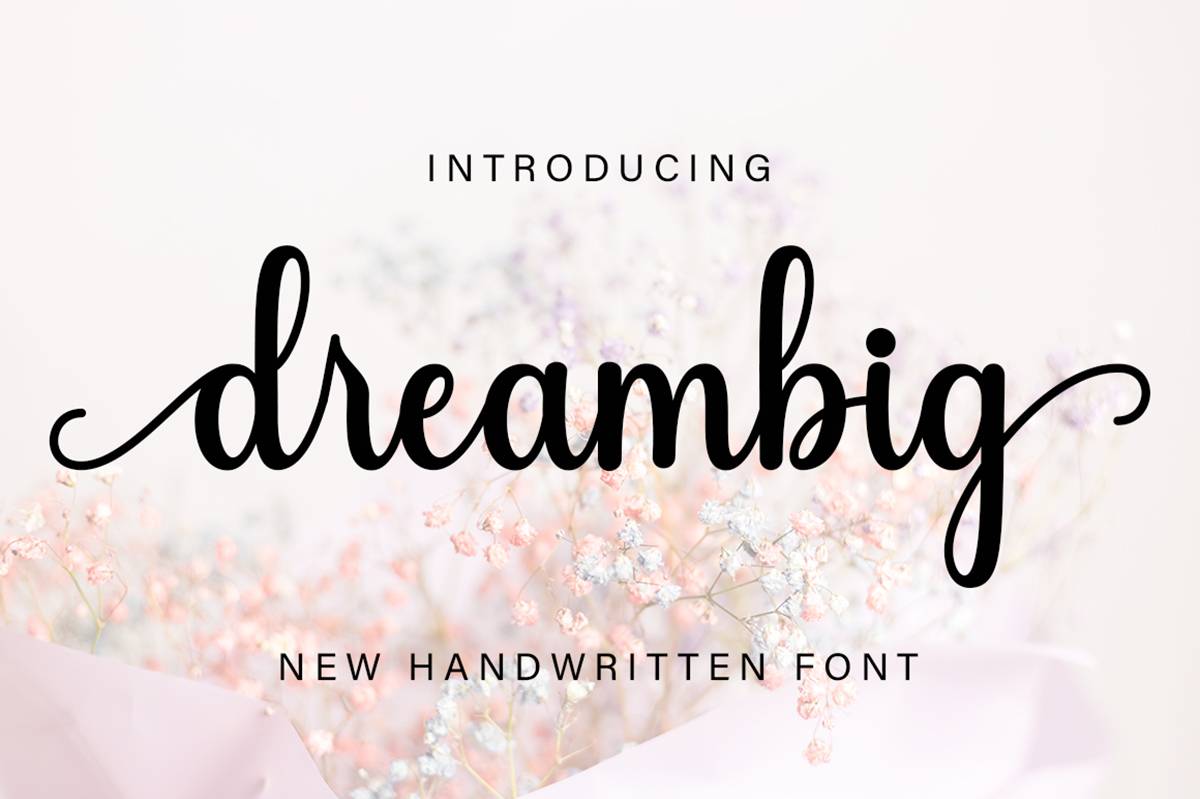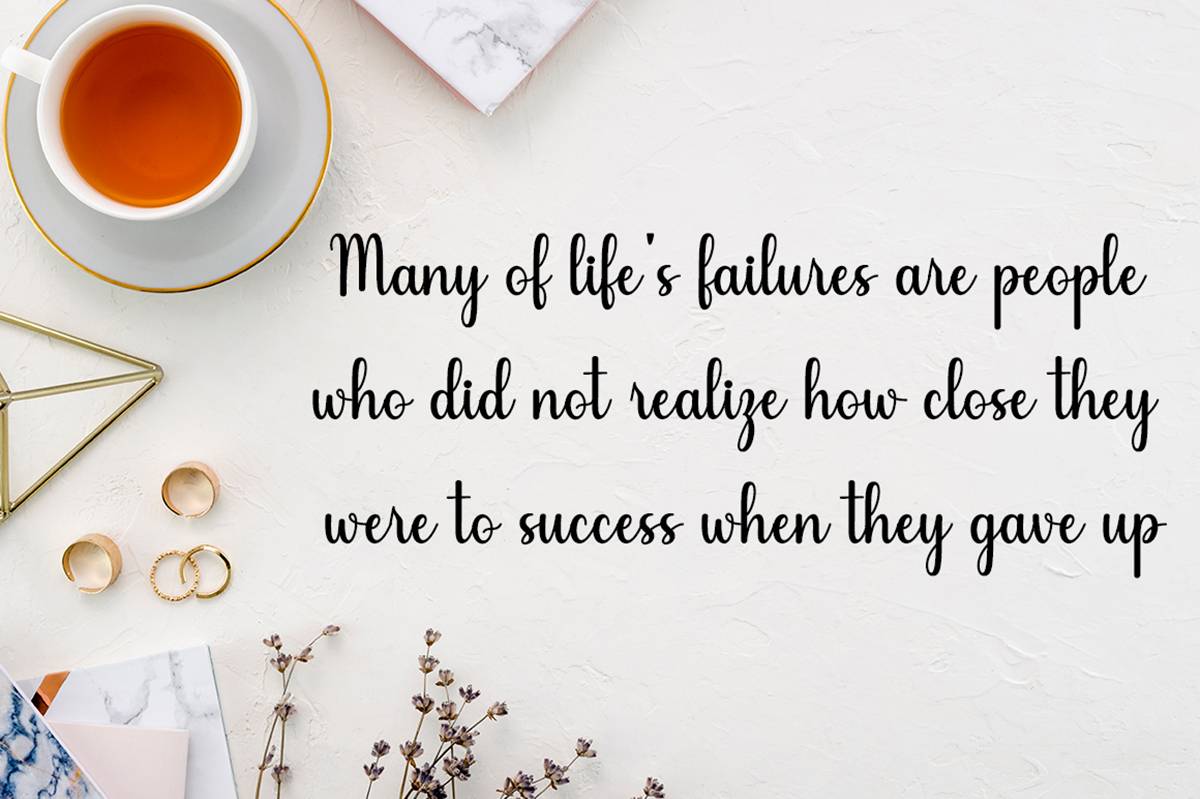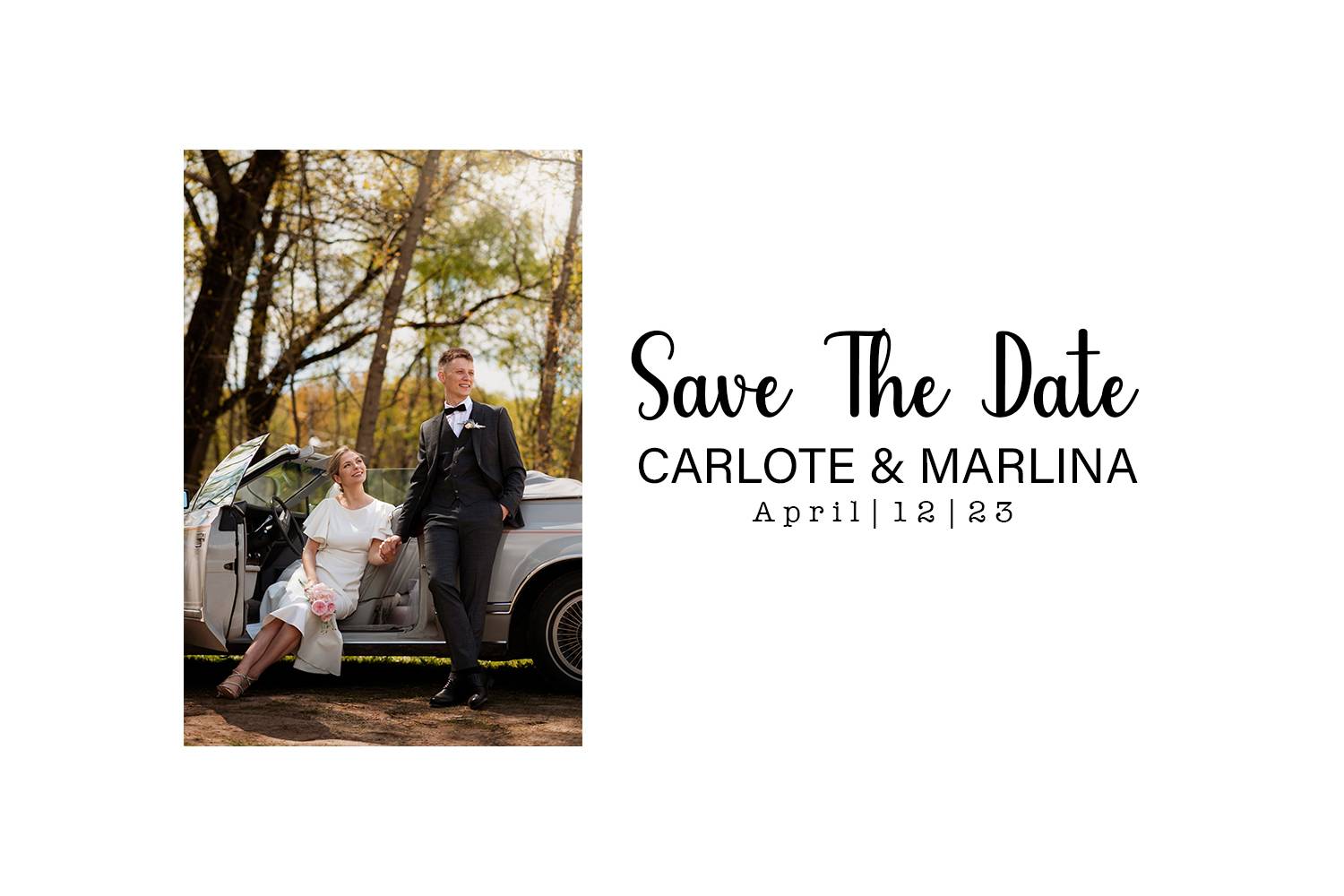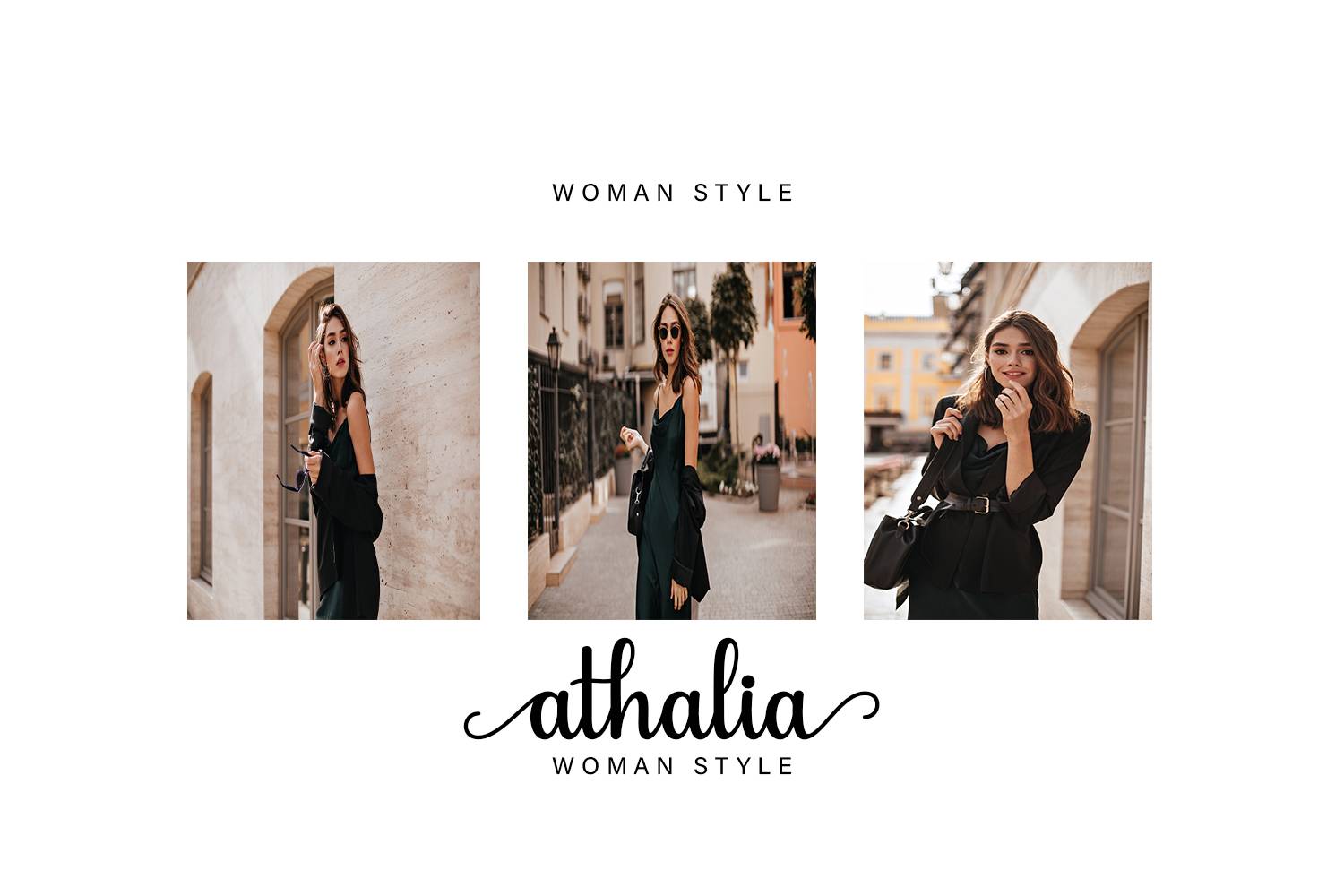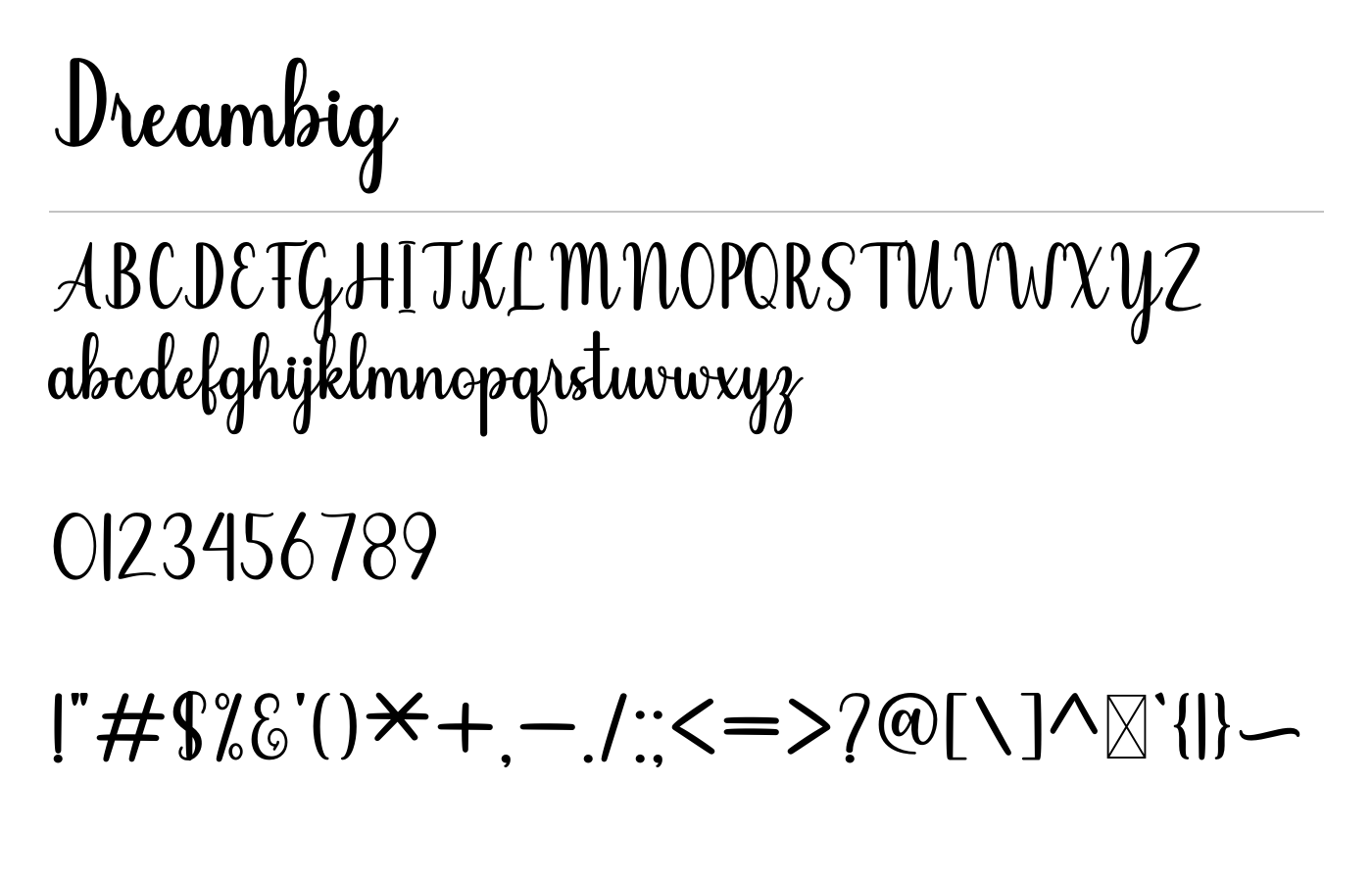
Dreambig is a playful and elegant script font with a lively, hand-drawn feel. Its tall, slender letterforms and smooth curves give it a friendly, approachable personality, making it perfect for creative branding, invitations, and casual headlines where warmth and charm are desired. This font works well in projects that want to convey a personal touch without sacrificing readability.
Dreambig Font
About Dreambig Font
| Font family | Dreambig Font |
| Designer | Wahyudi |